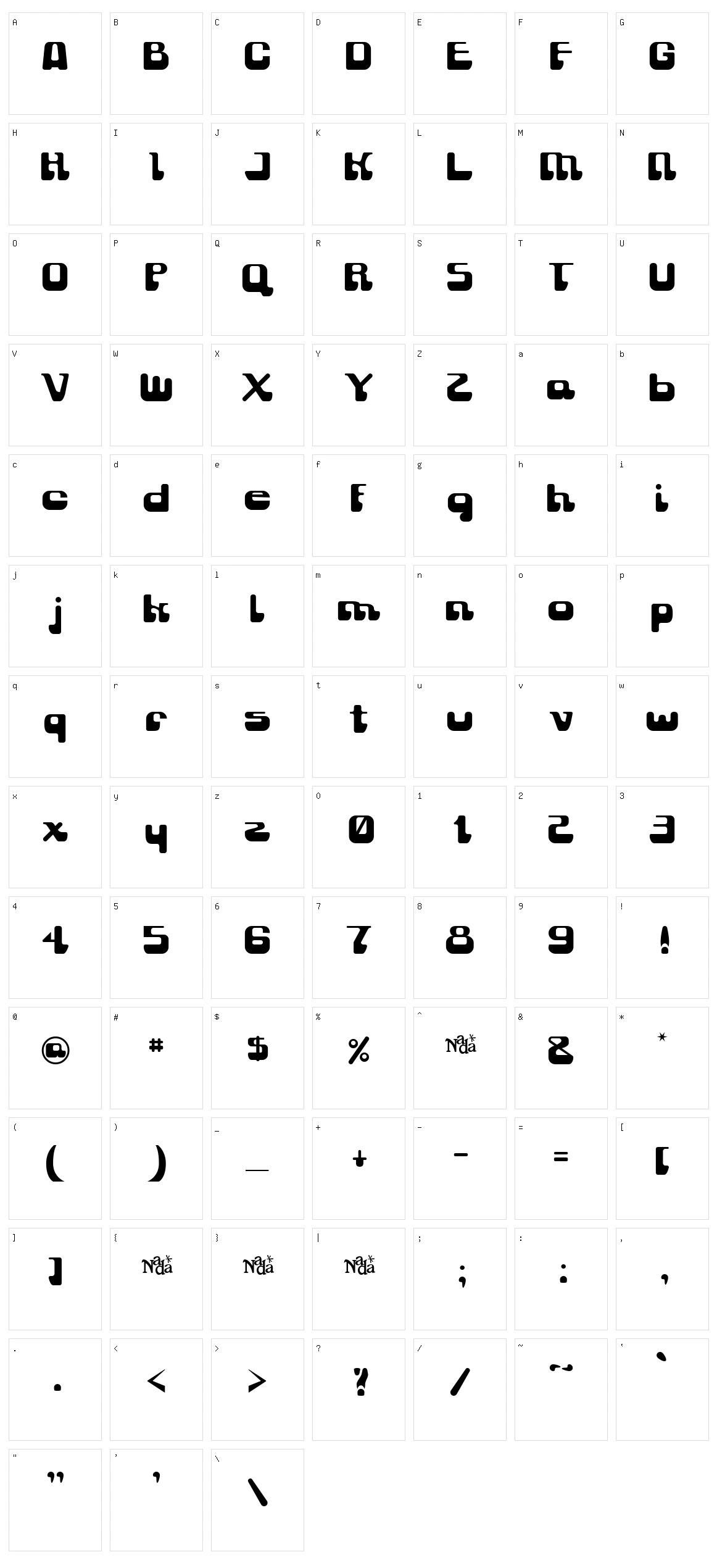
Gravity Sucks
Designed by: GreyWolf Webworks
"Gravity Sucks" is the 3rd free font from Rich Gast.
It was originally created on 01/04/98.
spacing and adds international characters.
The character set includes:
Upper and lower case letters, numbers and most punctuation.
"Gravity Sucks" is a new font I created to commemorate the way I feel
right now, on my forth day without a cigarette! Damn those New Years
resolutions, anyway ! !
..... Rich Gast